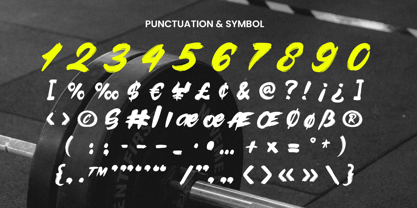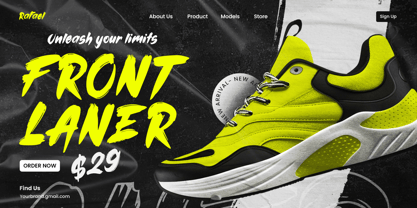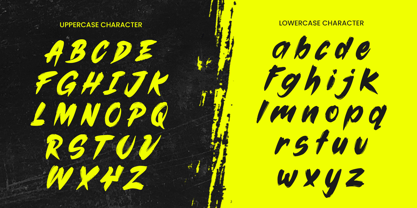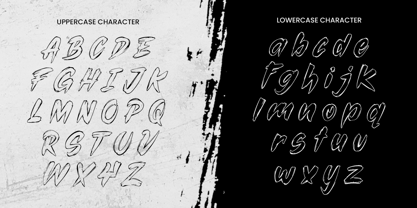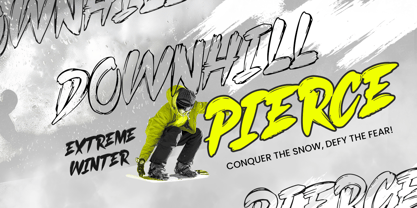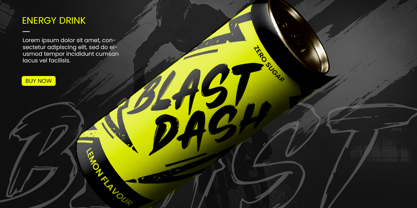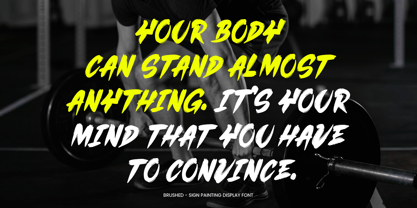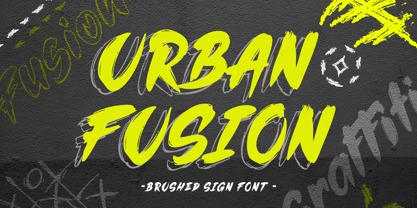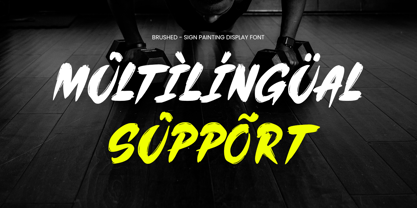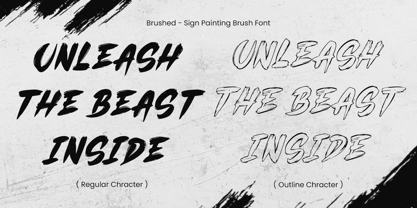
Brushed
by Sensatype Studio
The Brushed Font Family was designed by Zamroni Hamzah and published by Sensatype Studio. Brushed contains 2 styles and family package options. More about this family
BRUSHED is a sign painting brush font crafted to bring an authentic, hand-painted look to your creative projects. Ideal for logos, posters, signage, branding, and social media designs, it features dynamic brush strokes that mimic real paintbrush movement.
With its expressive, flowing letterforms, BRUSHED adds energy and personality to both print and digital designs, perfect for projects that require a handcrafted and artistic style.
BRUSHED – Sign Painting Brush Font Features
• Bold and expressive brush letterforms
• Available with Regular and Outline Version
• Uppercase, lowercase, numerals, and punctuation included
• OpenType features for extra versatility